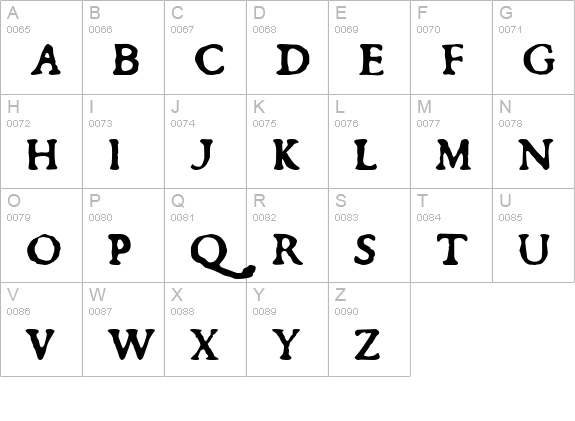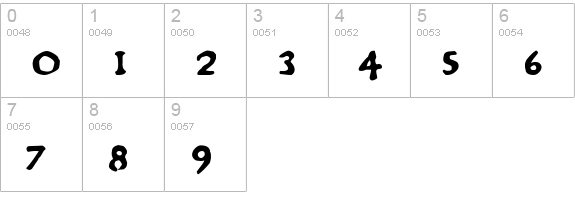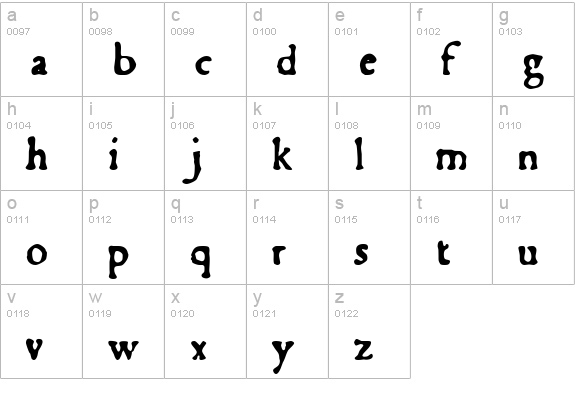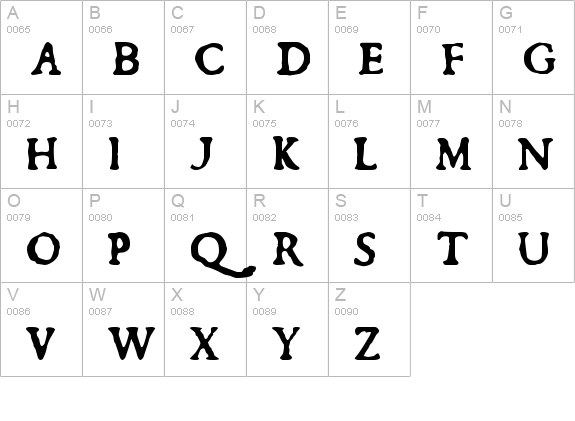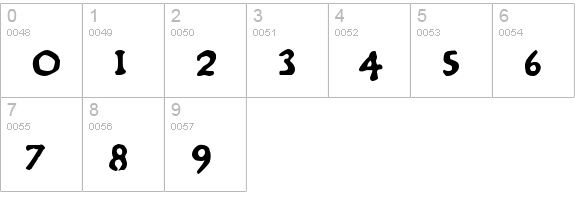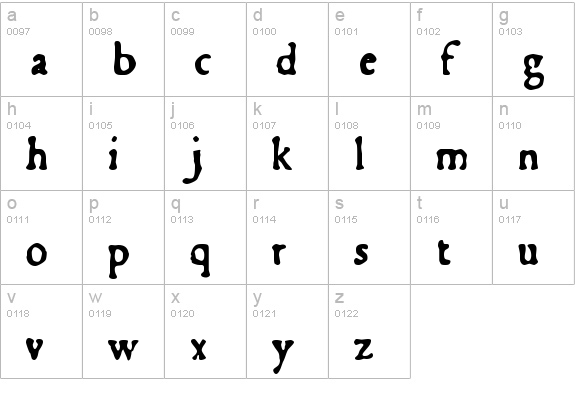
Du Bellay Font Details
Du Bellay font is a classic and elegant typeface that exudes sophistication and charm. With its delicate serifs and graceful curves, Du Bellay is perfect for adding a touch of timeless beauty to any project. Whether you are designing invitations, branding materials, or editorial layouts, this font will elevate your work to a new level of refinement. What sets Du Bellay font apart is not only its stunning design but also the fact that it is available for free download at FontsMarket.com. This means that you can easily access and use this exquisite font in your projects without any cost involved. So go ahead and enhance your designs with the elegance and style of Du Bellay font today!